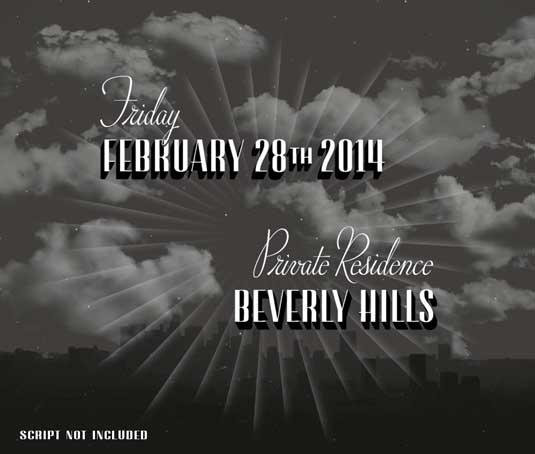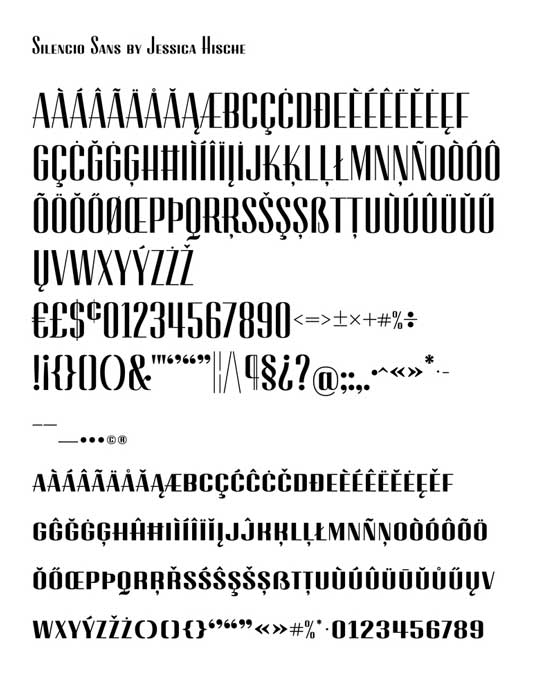
Font of the day: Silencio Sans by Jessica Hische
Silencio Sans by Jessica Hische
Silencio Sans was originally developed by leading typographer Jessica Hische for CAA’s (Creative Artists Agency) to be used on their Friday Night Party invitation in 2014.
"The party’s theme was 'old Hollywood'," says Hische, "so the design inspiration came from movie title credits. The name Silencio references silent films, but this font would feel as at home in magazines, invitations, and fancy food packaging as it does on the silver screen.
"It's also a wonderful 'best supporting actress' typeface," she adds. "Pair it with custom lettering (like I did for the invite!) or with another display face."